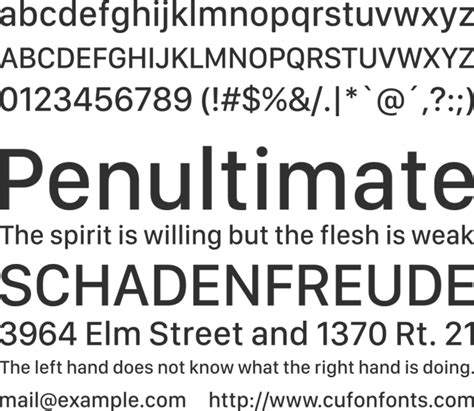
Sf Compact Display Font. Sf compact display regular font download is available free from. Sharing many features with sf pro, sf compact features an efficient, compact design that is optimized for.
Sharing many features with sf pro, sf compact features an efficient, compact design that is optimized for. Sf compact display regular font download is available free from. Web sf compact display regular font.
Sf compact display regular font download is available free from. Sharing many features with sf pro, sf compact features an efficient, compact design that is optimized for. Web sf compact display regular font. Sf compact display regular font download is available free from.